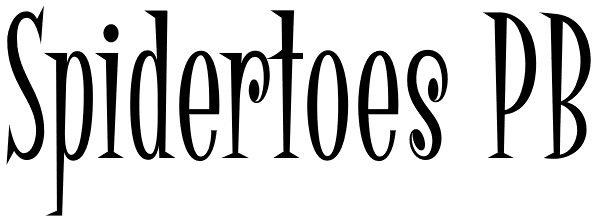
Spidertoes PB
Are you ticklish? Spidertoes is a petite and whimsical tapering latin serif font that is full of life, capable of looking playfully spooky as well as cute & dainty. Its a font that inspires smiles and laughter.